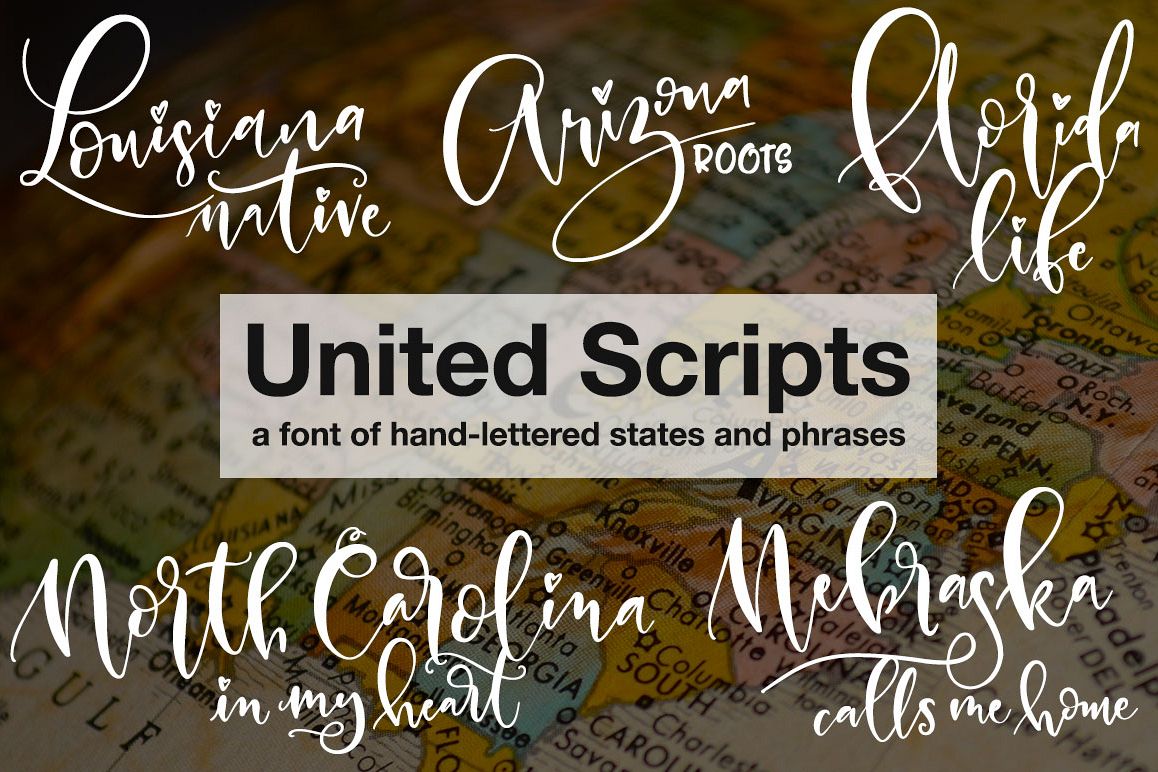
United Scripts - a font of states!
Introducing UNITED SCRIPTS, a font made up of hand-written words instead of letters!
Every letter key you press will give you a unique hand-lettered name of a U.S. state. And the number keys and punctuation contain supporting phrases, so you can create a full hand-lettered design by pressing just a couple of keys!
The states are arranged alphabetically, starting with Alabama (A), all the way to Wyoming (x). Plus, you'll find a "D.C." to attach to Washington (y) and Puerto Rico (z).
Support phrases like CALLS ME HOME, MY HEART IS IN, IN MY SOUL, NATIVE, and many more (in both script and all-caps) are designed to go perfectly with the states.
UNITED SCRIPTS includes:
- Every word and phrase mapped to easy keyboard keys
- Names of 50 US states, Puerto Rico and "D.C."
- Over 25 supplemental words and phrases